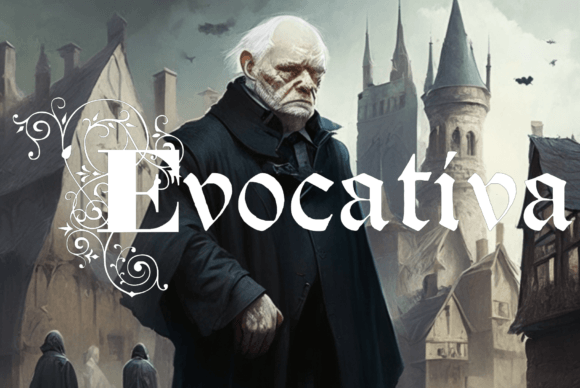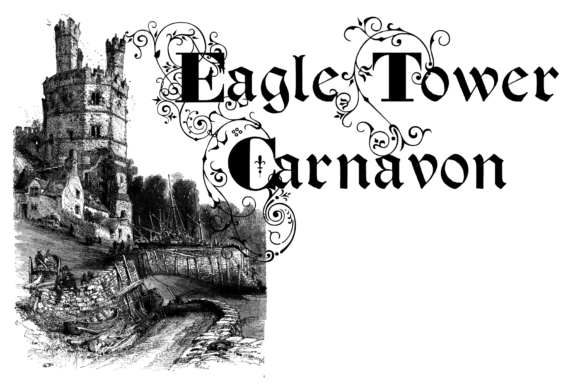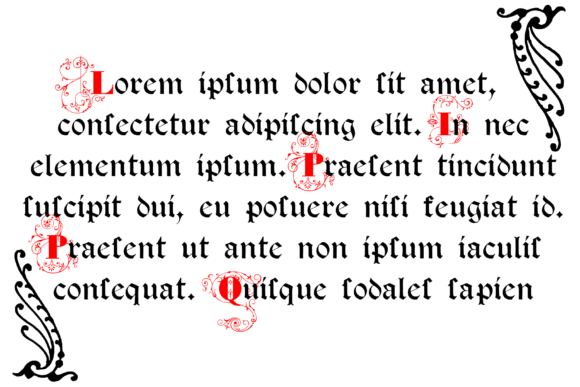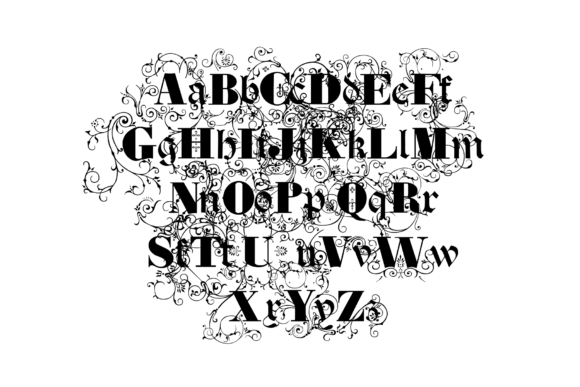
Introduction to Evocativa Font
Evocativa has a perfect combination of roman bodonian inspired ornamented caps with a well crafted blackletter set, in a balanced typeface suit to use in your headings text projects and in jobs with a classit and yet antique feeling.
Key Features of Evocativa Font